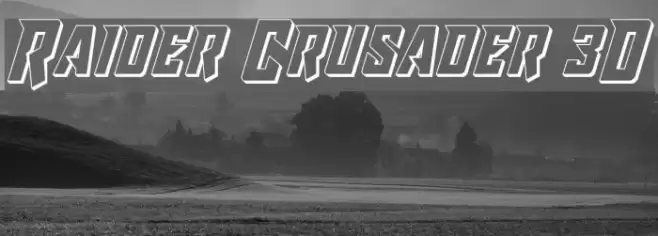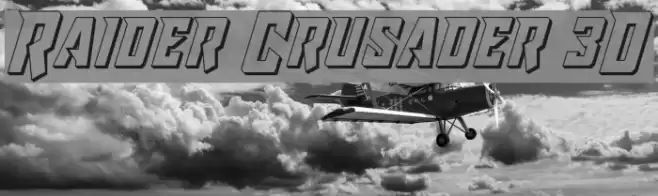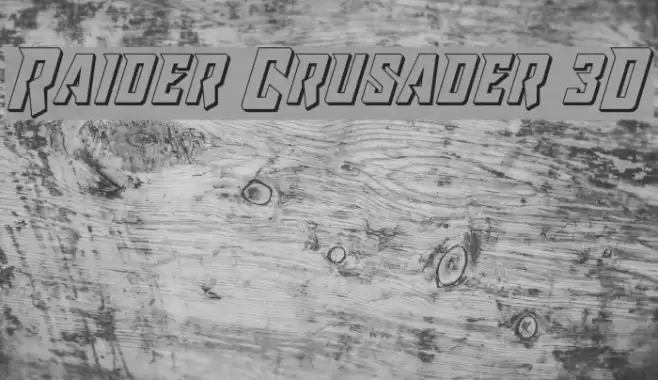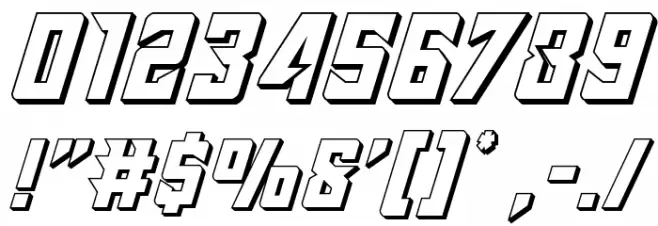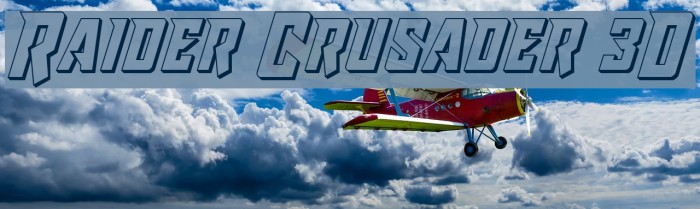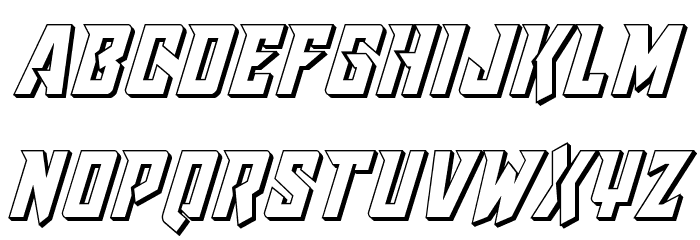
Raider Crusader 3D
This font features a bold, three-dimensional design with a strong, angular appearance. The characters are outlined, giving them a shadowed effect that enhances the 3D illusion. The uppercase letters are particularly striking, with sharp edges and a dynamic slant that suggests movement and energy. The numbers and special characters follow the same stylistic approach, ensuring consistency across all glyphs. This font is perfect for projects that require a sense of boldness and impact, such as sports branding, posters, or video game titles. Its unique style makes it stand out, capturing attention with its dramatic presence.
A bold, 3D font with angular, outlined characters and a dynamic slant.
- Proposed Projects: Ideal for sports branding, posters, video game titles, and any project needing a bold, impactful look.
- Contrast: High